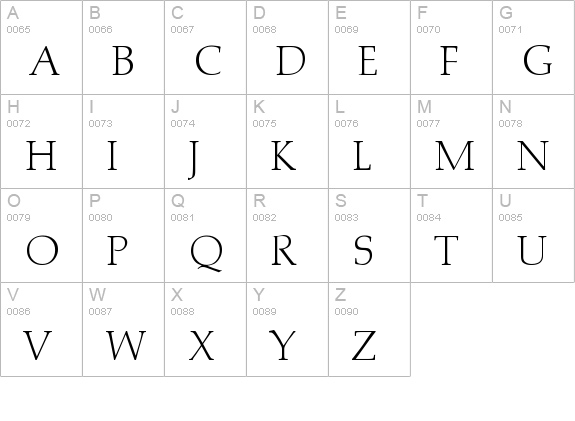
MarathonSerial-Xlight-Regular is the standard, neutral variant in the MarathonSerial typeface family \xE2\x80\x94 well suited to general body text, paragraphs, and standard typographic work.
MarathonSerial-Xlight-Regular is a sleek and elegant font that exudes a sense of modern sophistication. Its clean lines and subtle curves make it perfect for a wide range of design projects, from branding to editorial design. The light weight of this font gives it a delicate and graceful appearance, making it a versatile choice for both headings and body text. Best of all, MarathonSerial-Xlight-Regular is available for free download at FontsMarket.com. This means that you can easily add this stylish font to your collection without any cost. Whether you're working on a personal project or a professional design, MarathonSerial-Xlight-Regular is sure to elevate your work with its timeless charm and refined aesthetic. Download this font today and bring a touch of elegance to your designs.